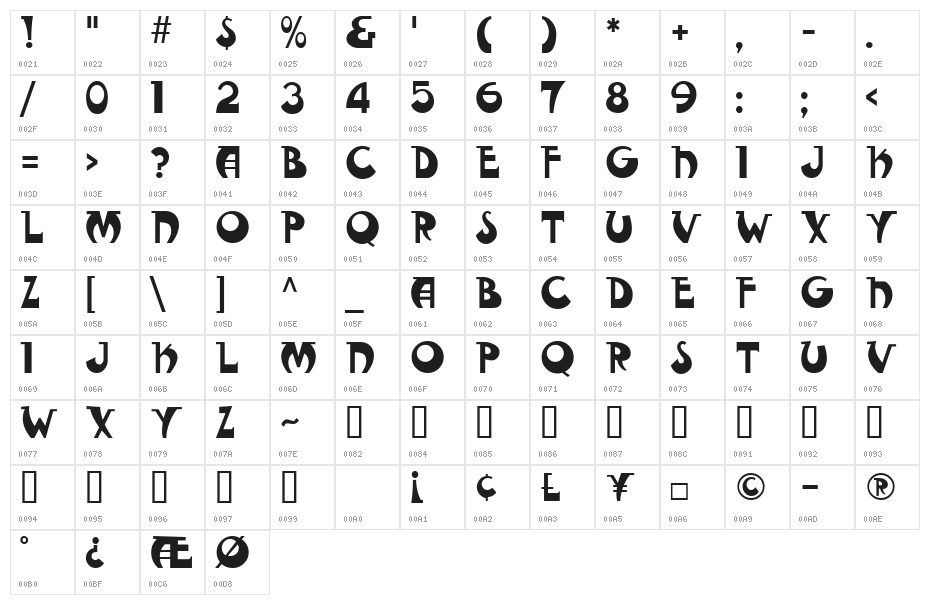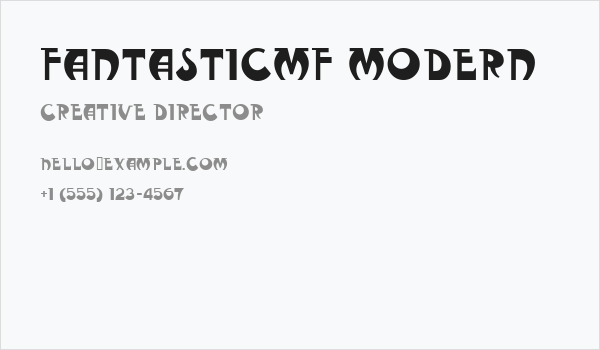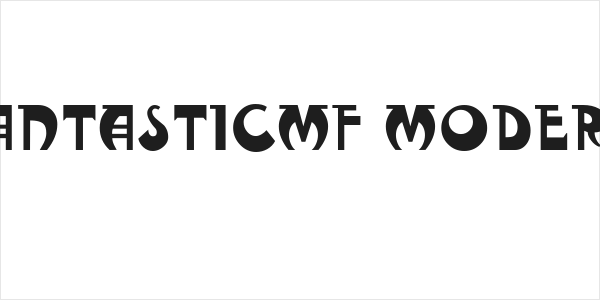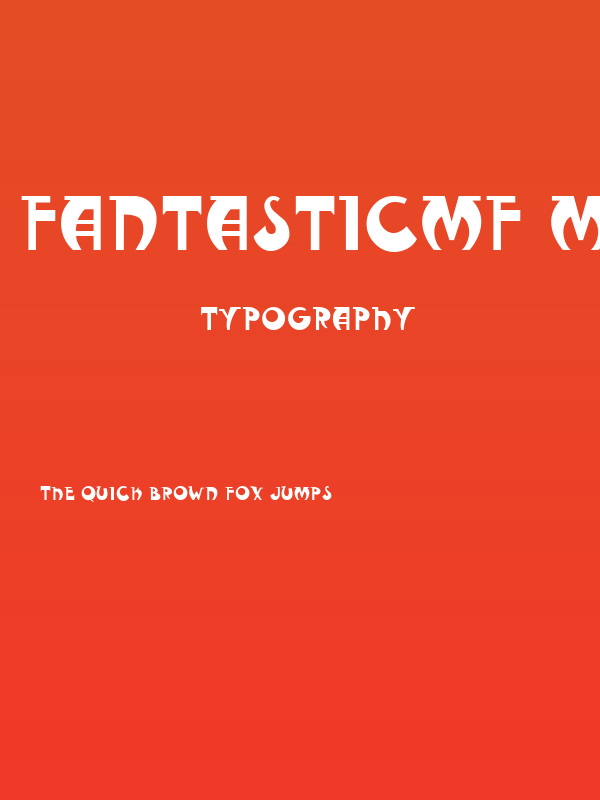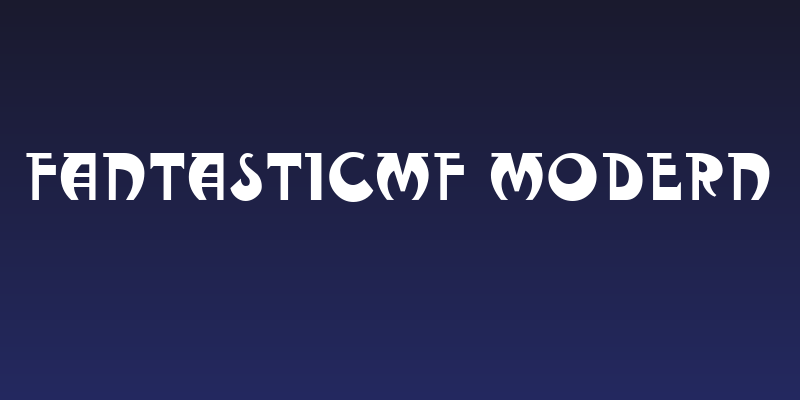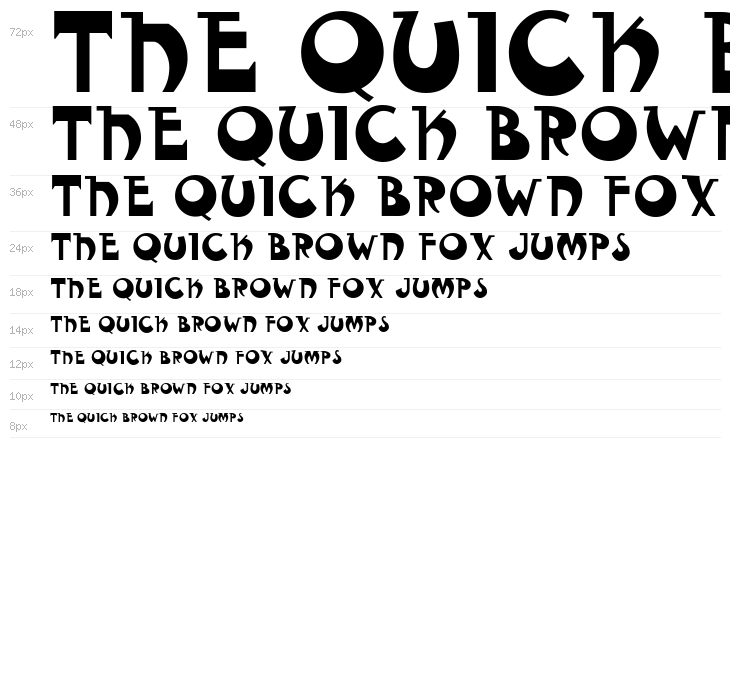
FantasticMF Modern Font
FantasticMF Modern Description
This font features a bold and striking design with a modern flair. The characters are crafted with a unique blend of geometric shapes and sharp angles, giving it a futuristic and artistic appearance. The uppercase letters exhibit a strong presence with their wide and solid forms, while the lowercase letters maintain a consistent style that complements the overall aesthetic. The numerals are equally bold, ensuring readability and impact. Special characters are designed with the same attention to detail, making them stand out in any composition. The font's distinct style makes it ideal for projects that require a contemporary and eye-catching look.